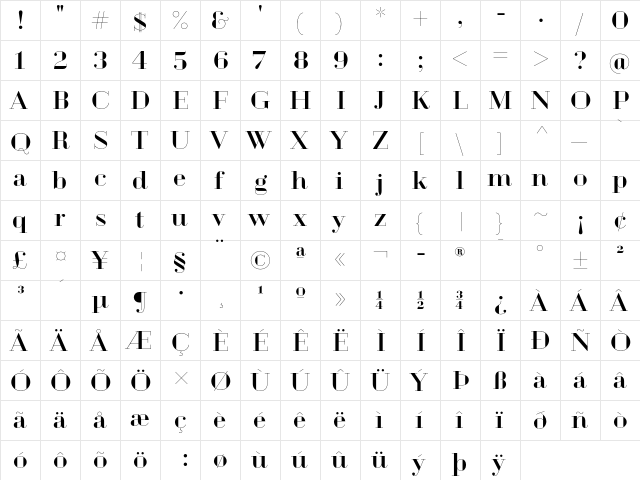
Geotica Two Regular
| Foundry | Jos Buivenga |
| Designer | Jos Buivenga |
Design Context for Geotica Two Typeface
Geotica Two is a composed and adaptable typeface that performs quietly and consistently across a wide range of design contexts.